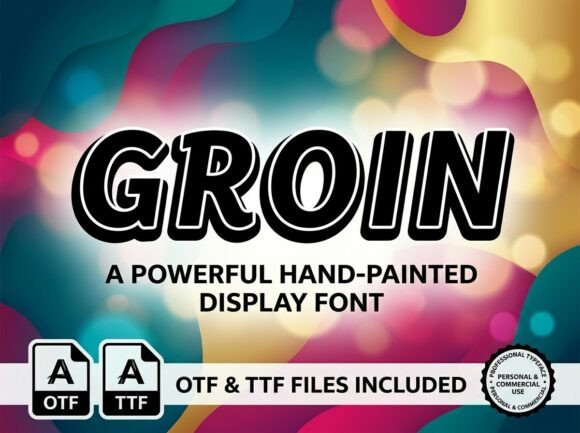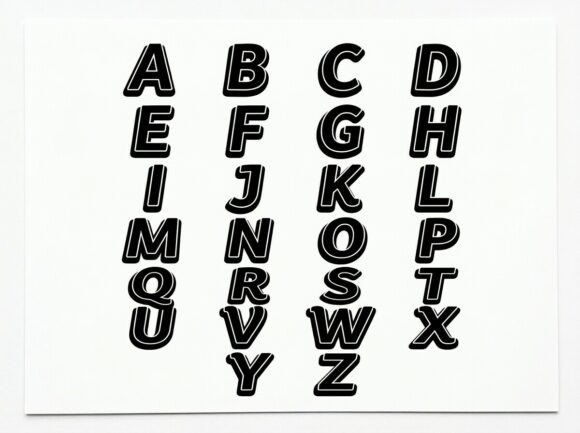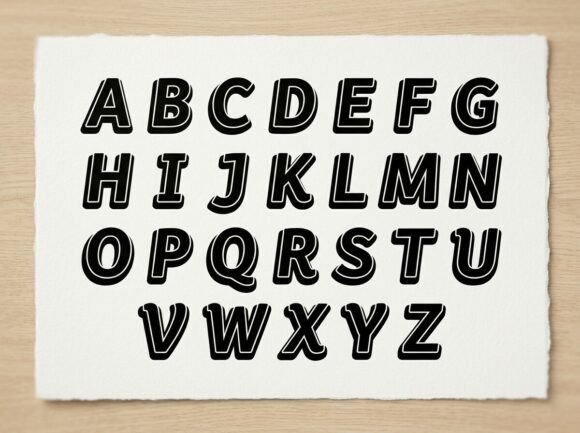
Introducing Groin Font: A Stunning Decorative Display Font
Are you tired of using the same old fonts for your creative projects? Look no further than Groin Font, a unique and artistic display font that’s sure to turn heads. Designed to be the center of attention, this font features a strong visual personality and is perfect for creators who want to break away from the ordinary.
What Makes Groin Font Special?
Groin Font is a versatile decorative display font that’s ideal for bold headlines, artistic logos, and creative packaging. Its unique artistic elements and strong visual personality make it perfect for projects that require a professional and polished finish. Whether you’re a designer, craftsperson, or DIY enthusiast, this font is sure to elevate your creative projects to the next level.
Before purchasing Groin Font, please note that it’s an ALL-CAPS (Uppercase Only) display typeface. This means it does not include lowercase letters. It’s specifically designed for high-impact headlines, logos, and decorative initials where every letter is a work of art.
Use Cases for Groin Font
Groin Font is perfect for a variety of creative projects, including:
- Headlines and Titles: Use Groin Font to create bold and eye-catching headlines for your blog posts, articles, and social media graphics.
- Logos and Branding: Create a unique and memorable logo for your business or brand using Groin Font.
- Packaging and Labels: Add a touch of elegance and sophistication to your product packaging and labels with Groin Font.
- Artistic Projects: Use Groin Font to add a creative and artistic touch to your projects, such as posters, flyers, and brochures.
Tips for Using Groin Font
Here are some tips for getting the most out of Groin Font:
- Use it sparingly: Groin Font is a bold and attention-grabbing font, so use it sparingly to avoid overwhelming your design.
- Experiment with colors and textures: Add an extra layer of depth and interest to your design by experimenting with different colors and textures.
- Pair it with other fonts: Pair Groin Font with other fonts to create a unique and visually appealing contrast.
Groin Font is a stunning decorative display font that’s perfect for creators who want to break away from the ordinary. With its unique artistic elements and strong visual personality, this font is sure to elevate your creative projects to the next level. Whether you’re a designer, craftsperson, or DIY enthusiast, Groin Font is a versatile and professional font that’s sure to impress.